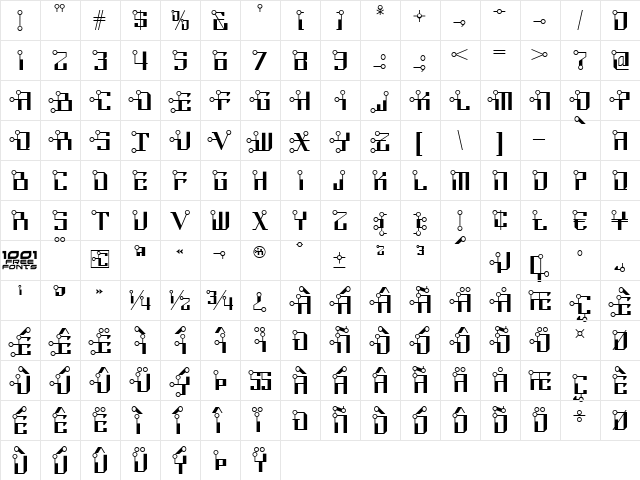
Circuit Bored NF Regular
Design Context for Circuit Bored NF Typeface
Circuit Bored NF is a composed and adaptable typeface that performs quietly and consistently across a wide range of design contexts.